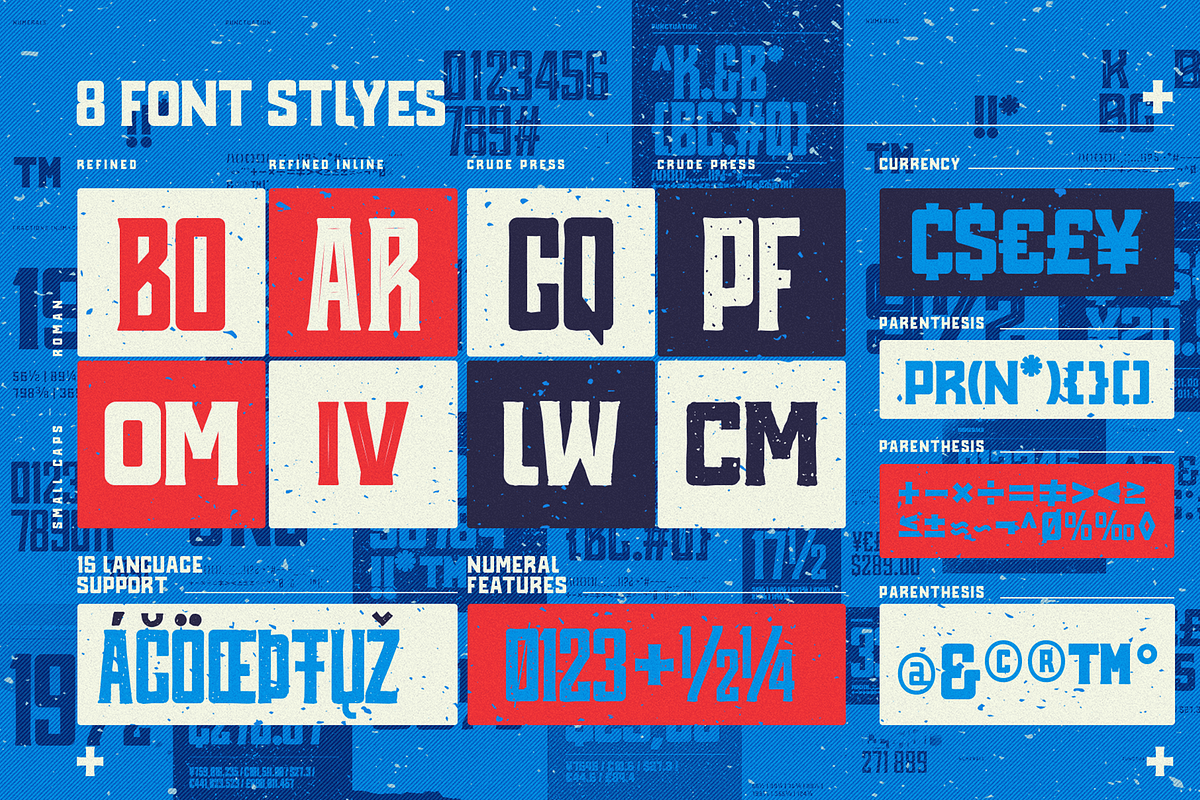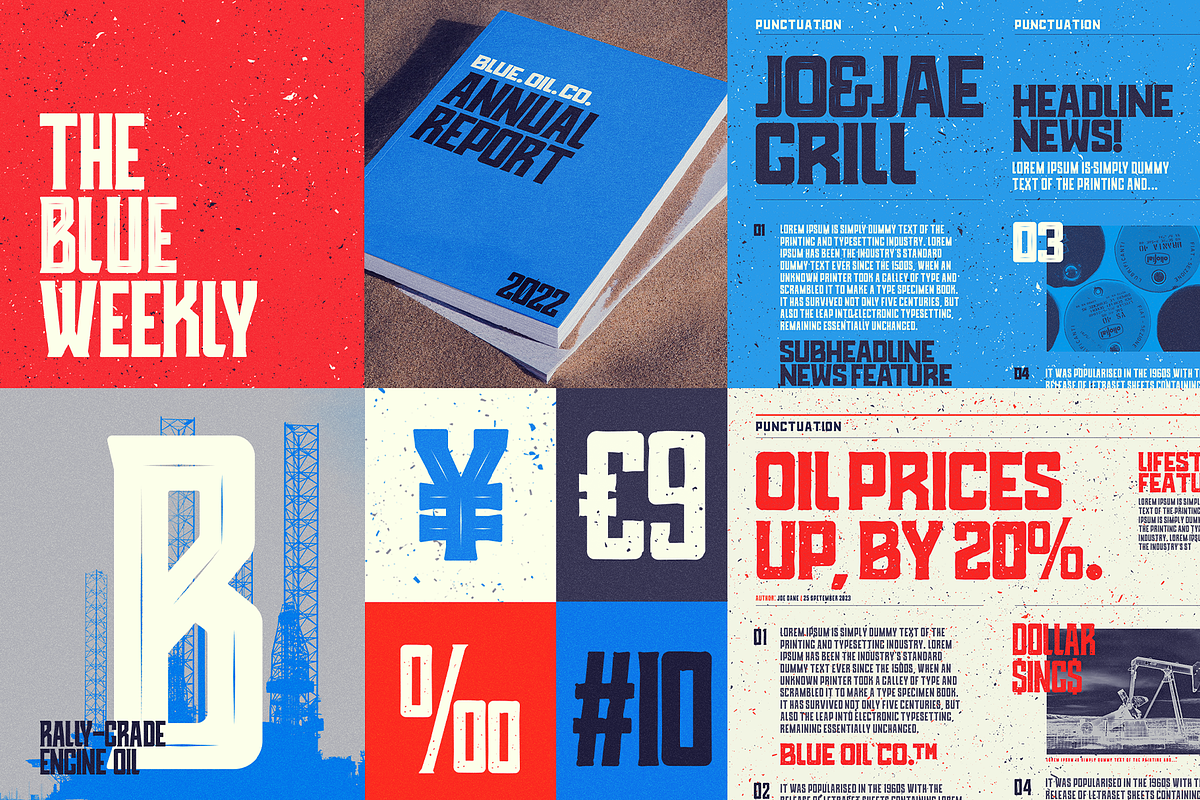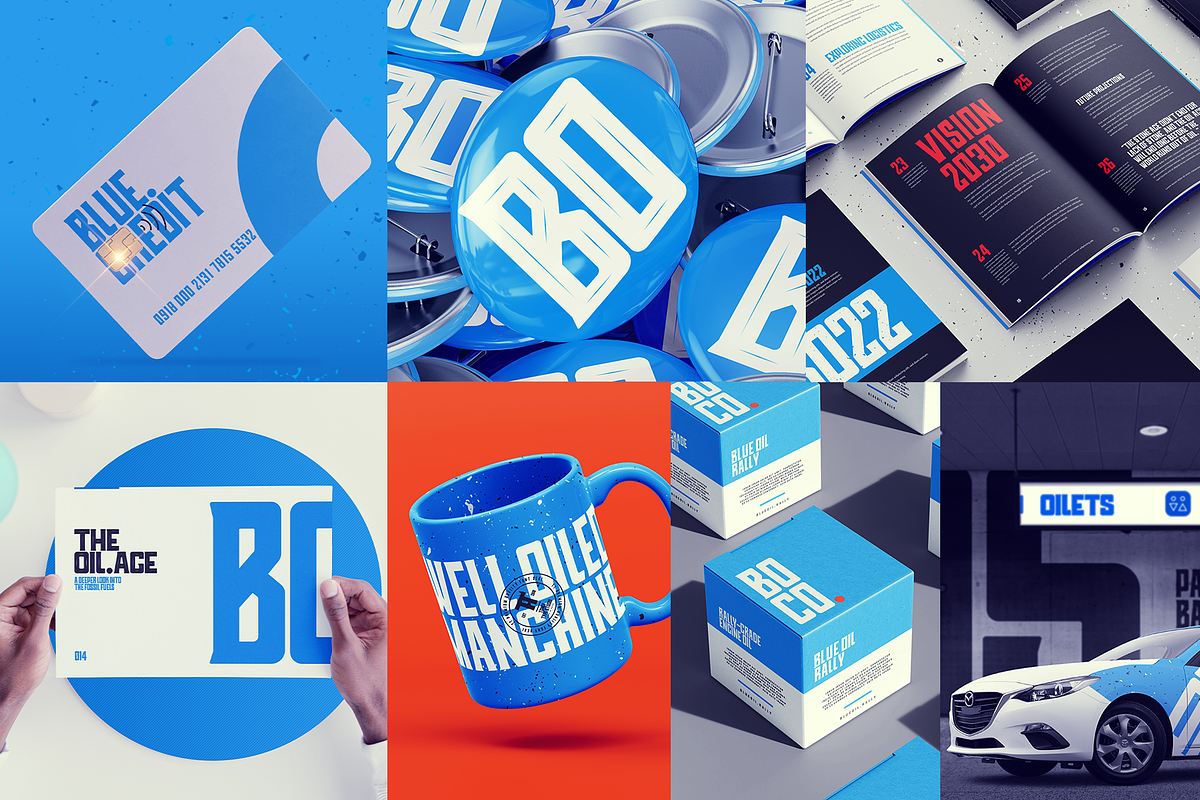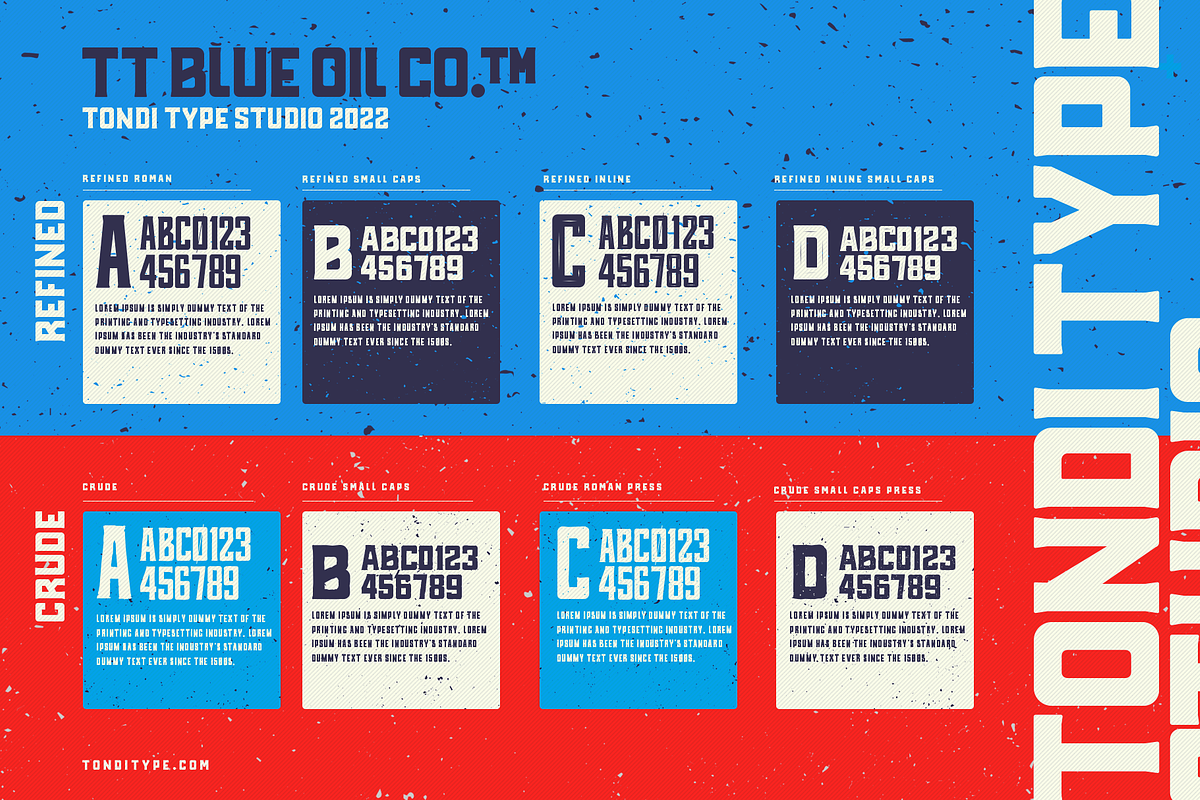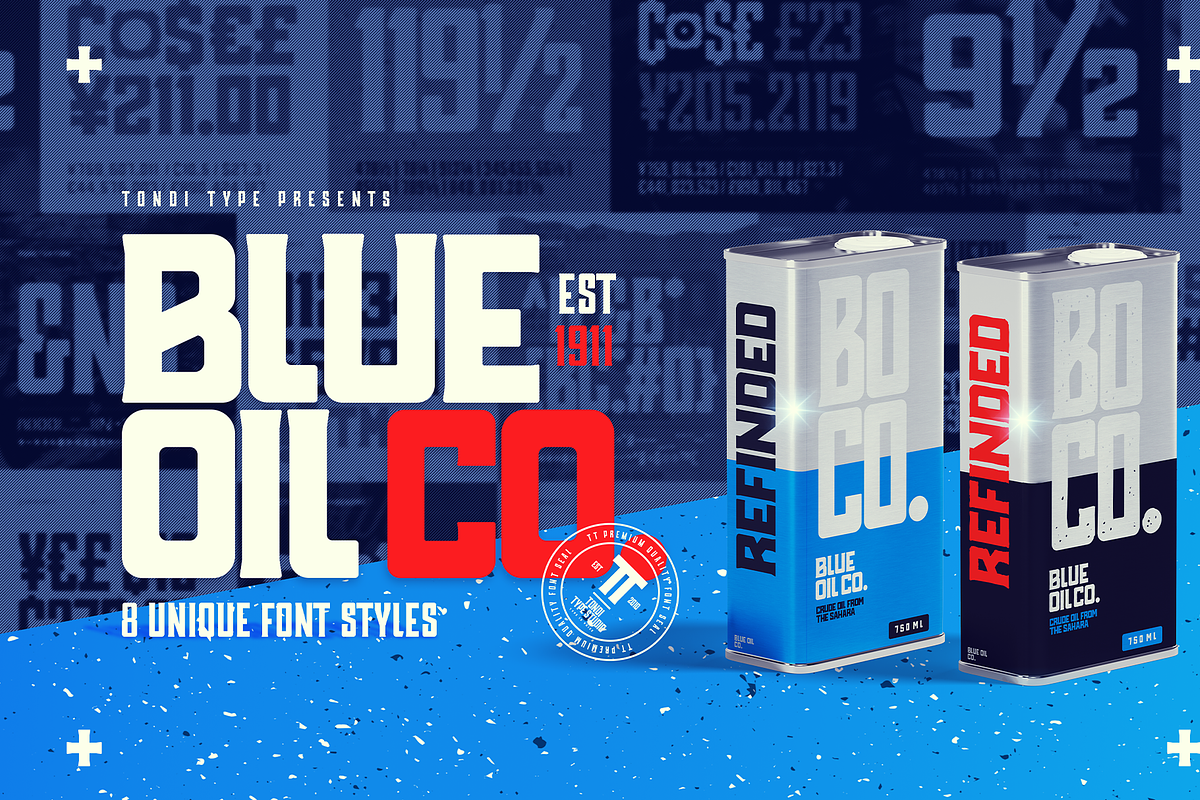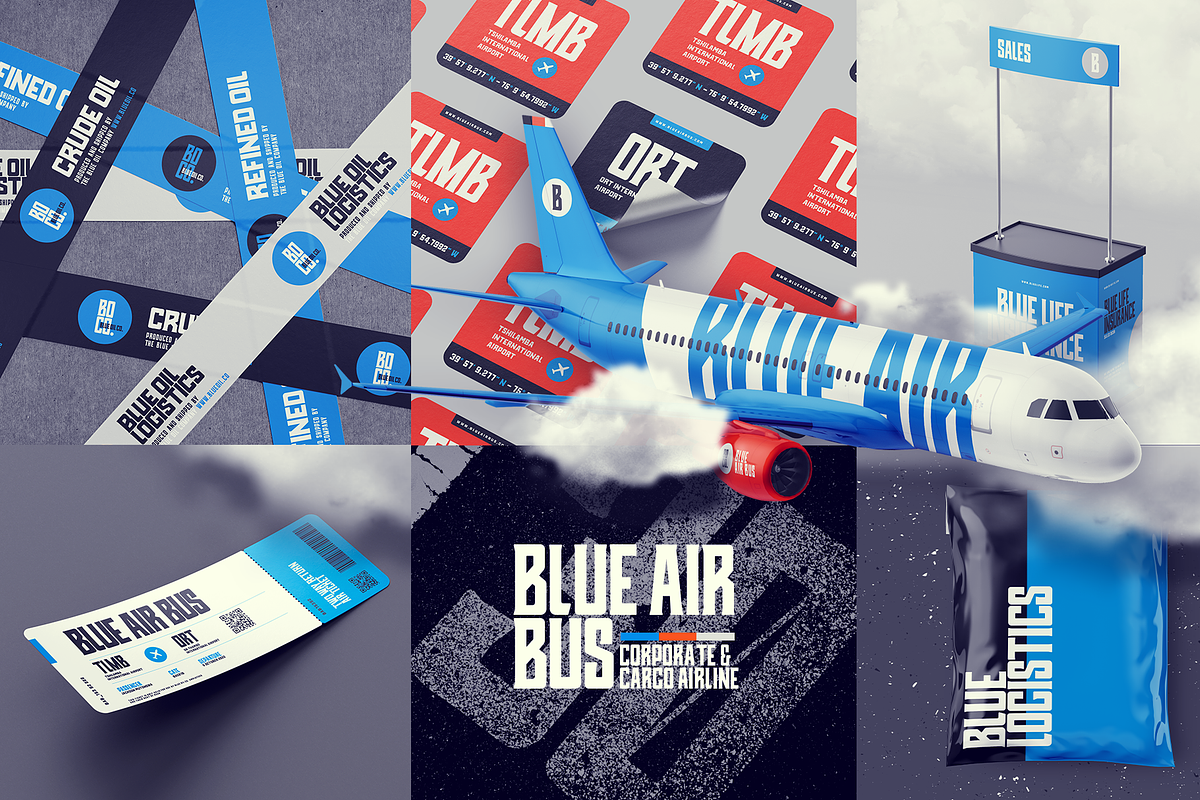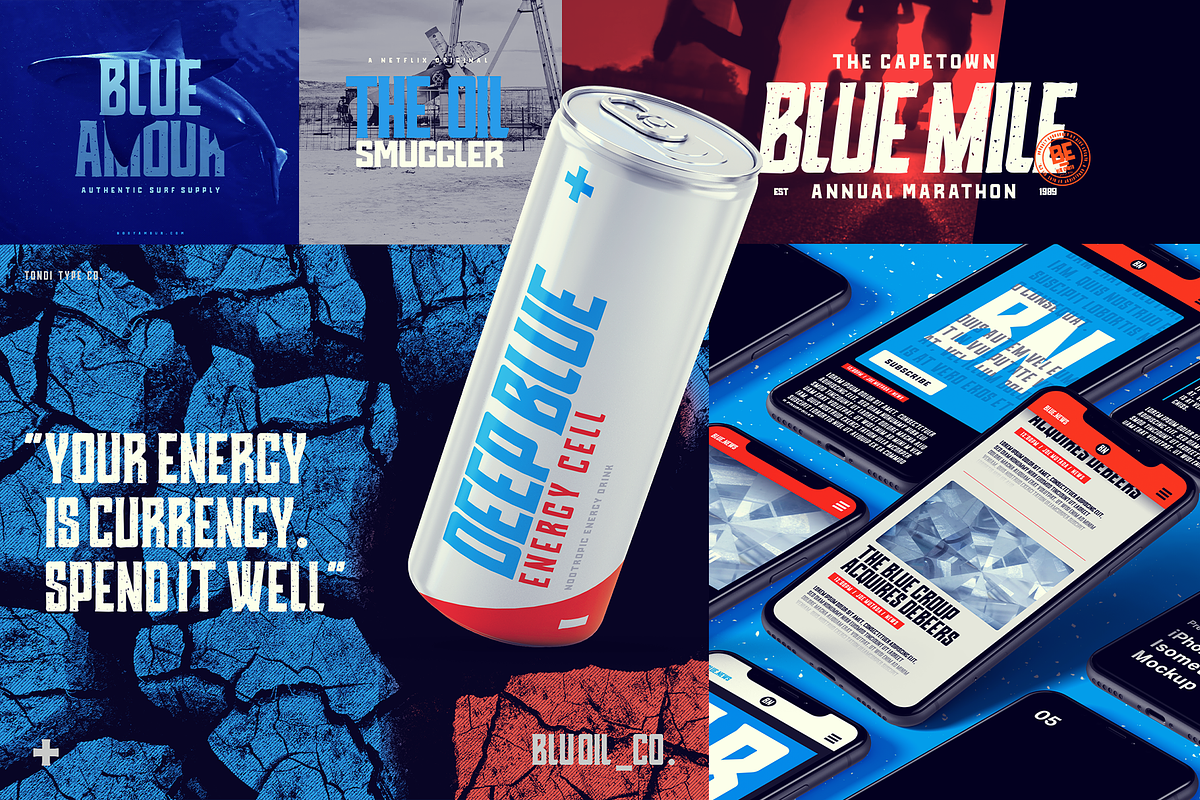
Blue Oil Co. | Vintage Font Family
Blue Oil Co. Is a vintage inspired serif font family. This typeface was the result of a fusion of sans geometrik sans with a vintage serif finish. The letterforms are rectangular in form with rounded corners and slightly protruding serifs.
With the wide range of styles in the font family, you can add a clean or grungy look to your designs using this typeface. Blue Oil has two main styles that have four variant styles each, namely: Refined and Crude. Each style comes in Roman Capitals and Small Capitals, allowing you to add contrasting-type to your designs.
The typeface is ideal for use in Retail branding, wordmark design, social media, apparell, brand identity and UI Design amongst other uses.
Blue Oil Co. comes in 8 styles:
Blue Oil Co. Refined:
- Refined Roman,
- Refined SmallCaps,
- Refined Inline,
- Refined Inline SmallCaps
Blue Oil Co. Crude
- Crude Roman,
- Crude SmallCaps,
- Crude Roman Press,
- Crude SmallCaps Press.